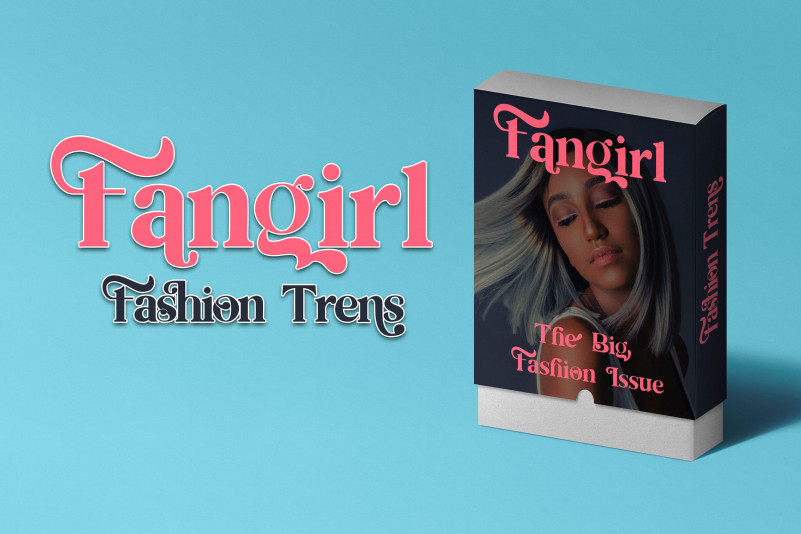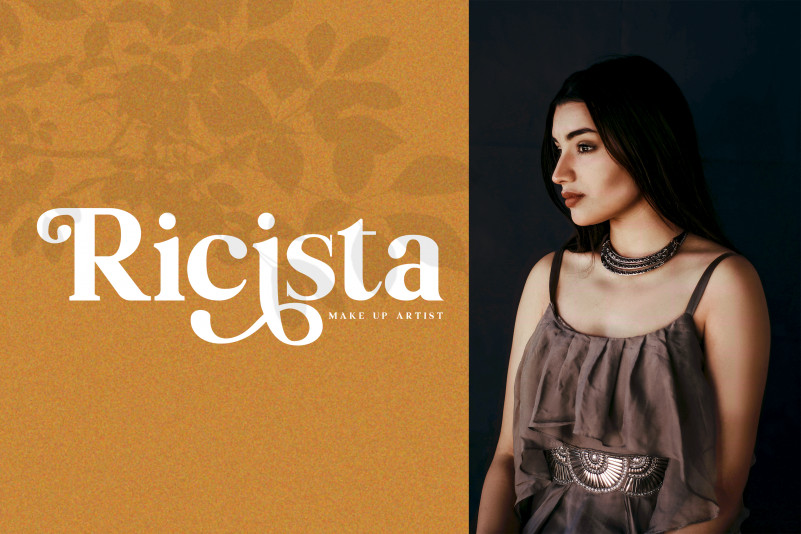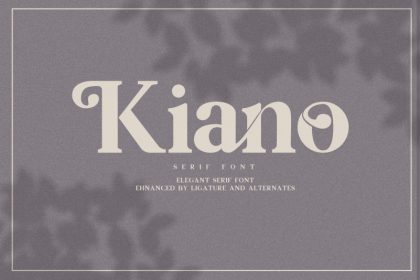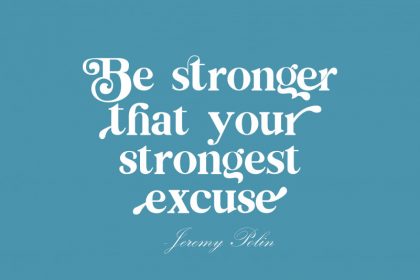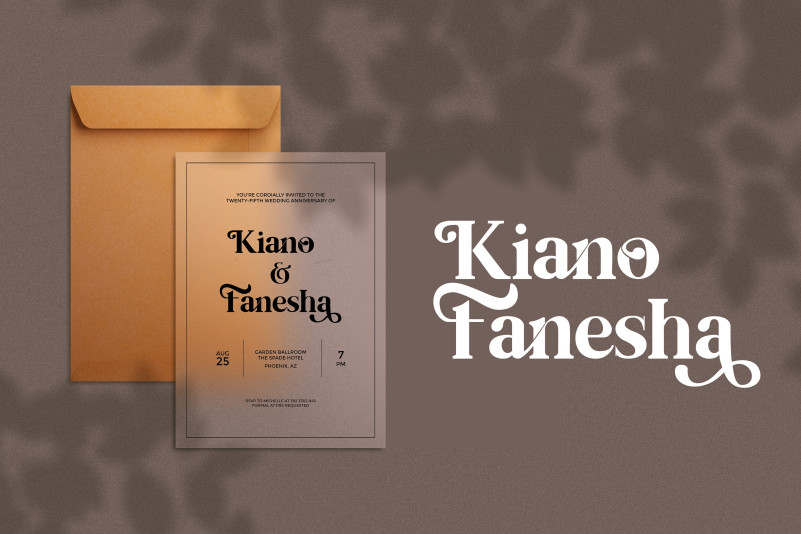
Hello friend. Kiano Serif Font is a modern serif font family whose design refers us to the style of modern serif. This font is relatively low contrast of strokes, the slightly squarish shapes of round characters and the emphasized business like simplicity. It’s designed by Mevstudio. In combination with it‘s various alternates, you can create a unique touch to each of your design. Equil is highly recommended for logos, (sub-)headlines, branding and others.